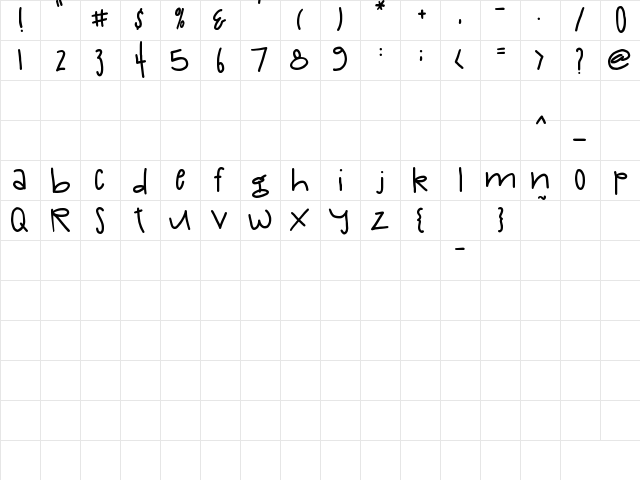
2Peas chunky peanut butter Regular
| Foundry | Two Peas in a Bucket |
| Designer | Amy Grendell |
Design Context for 2Peas chunky peanut butter Typeface
2Peas chunky peanut butter is a composed and adaptable typeface that performs quietly and consistently across a wide range of design contexts.